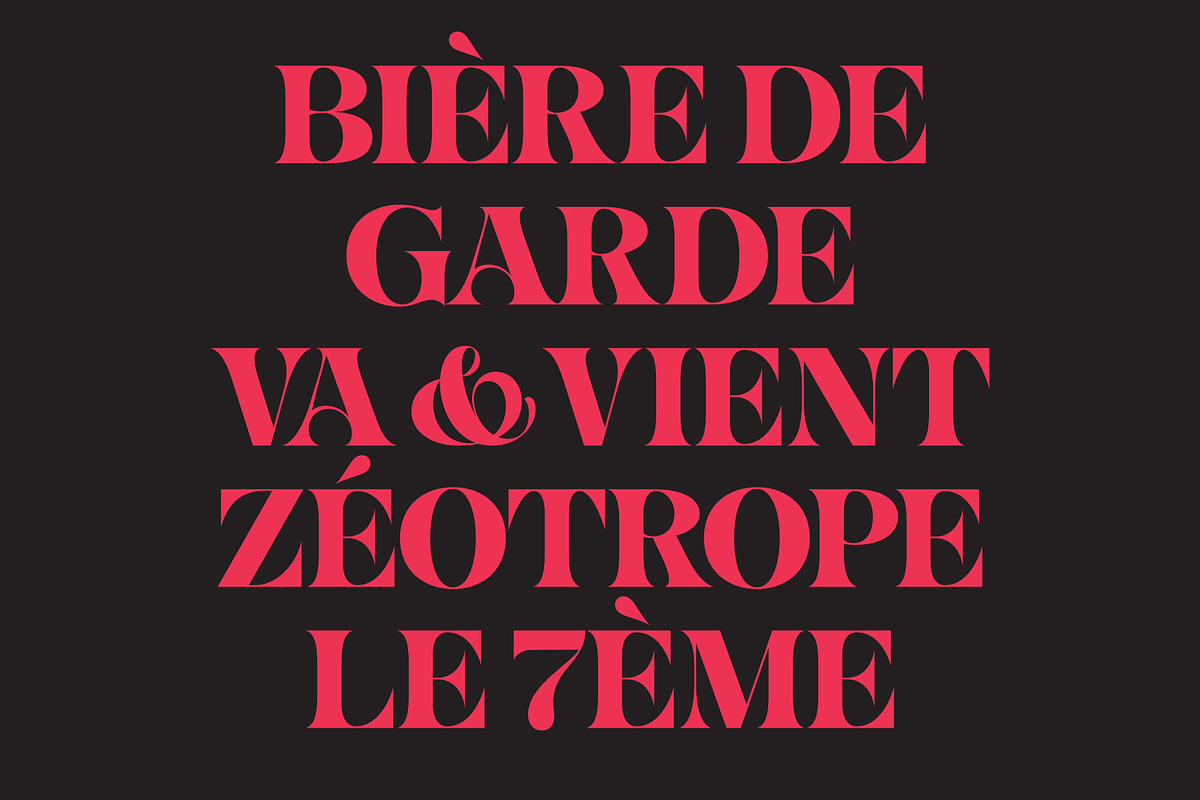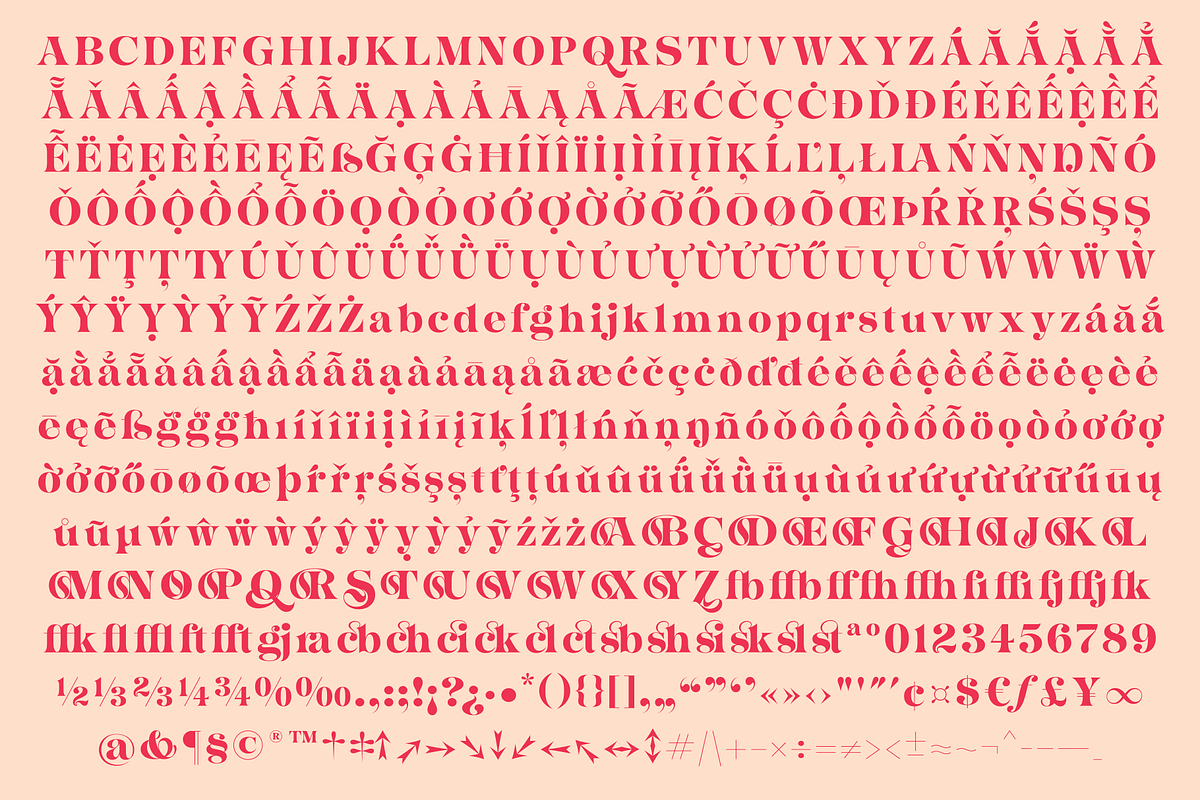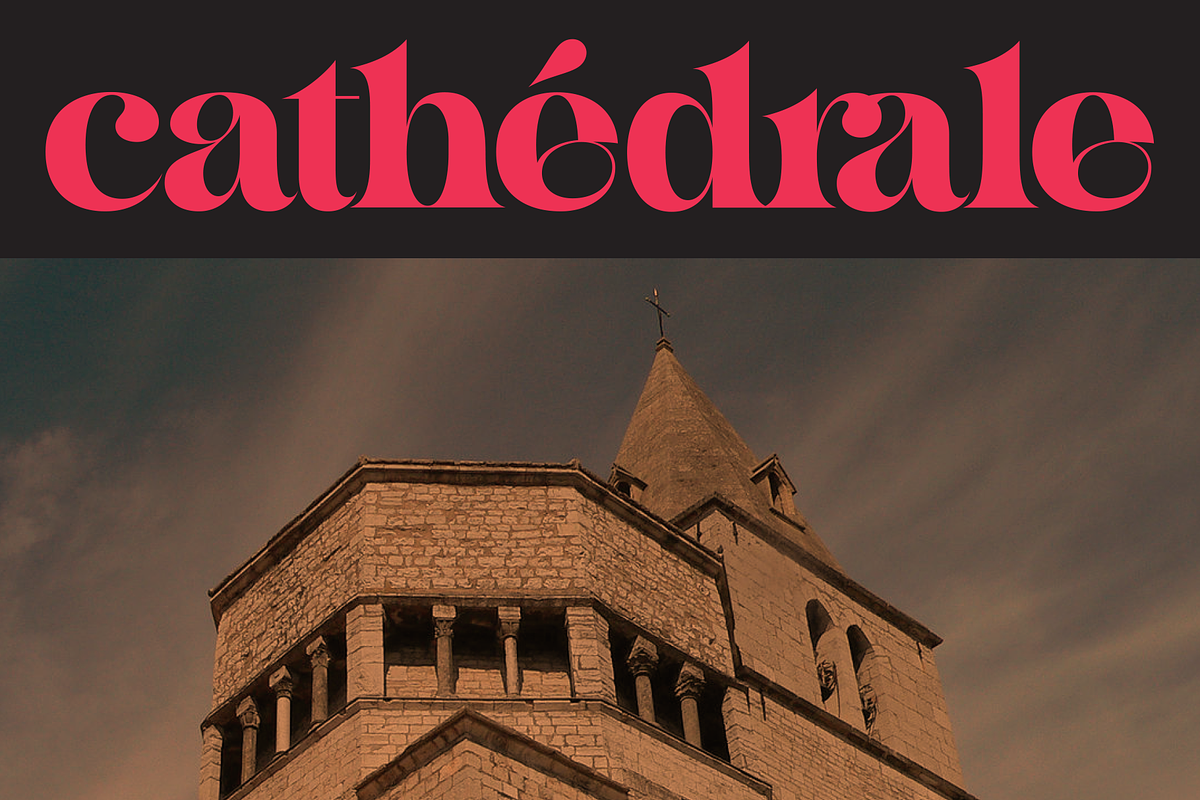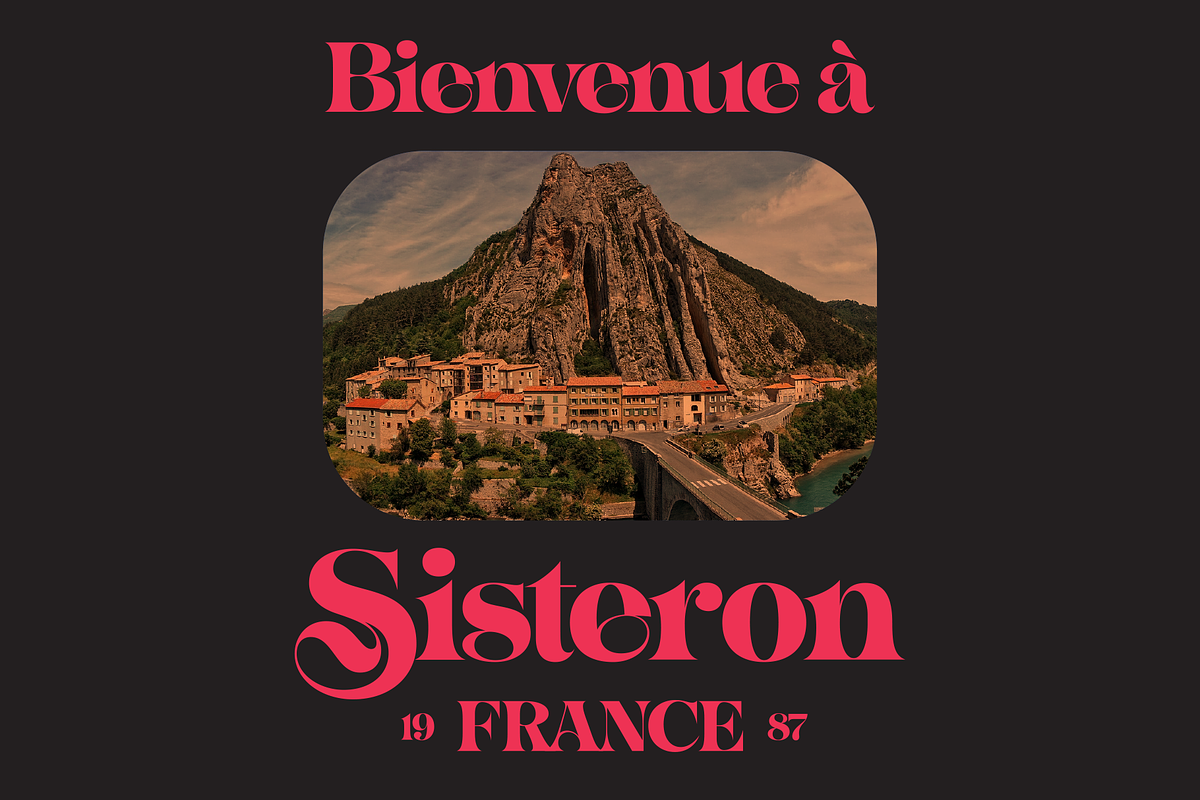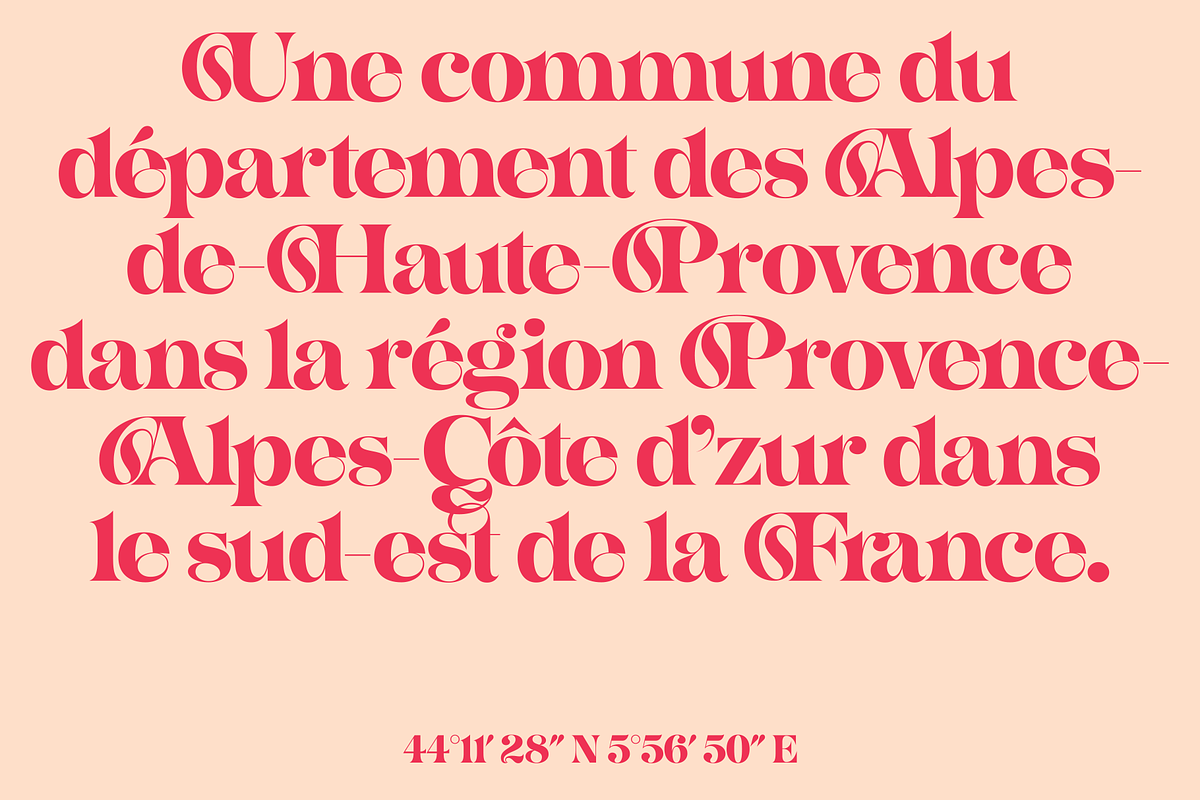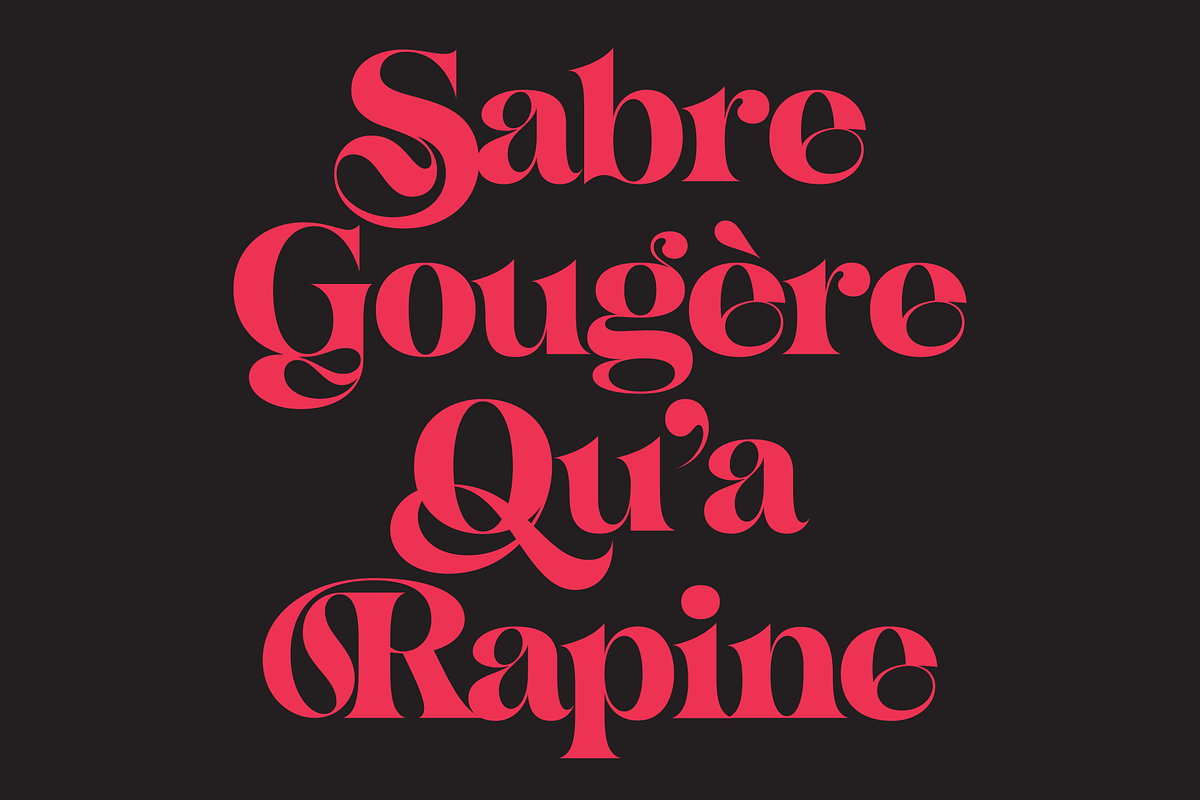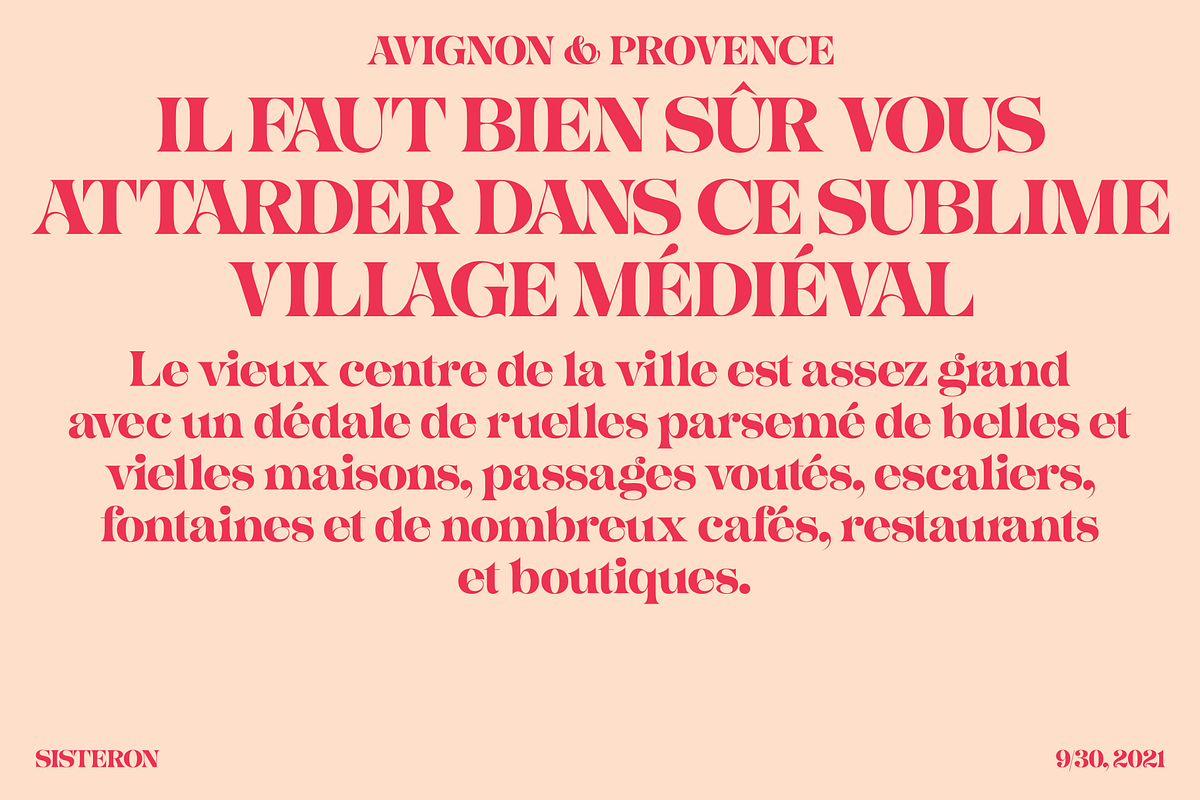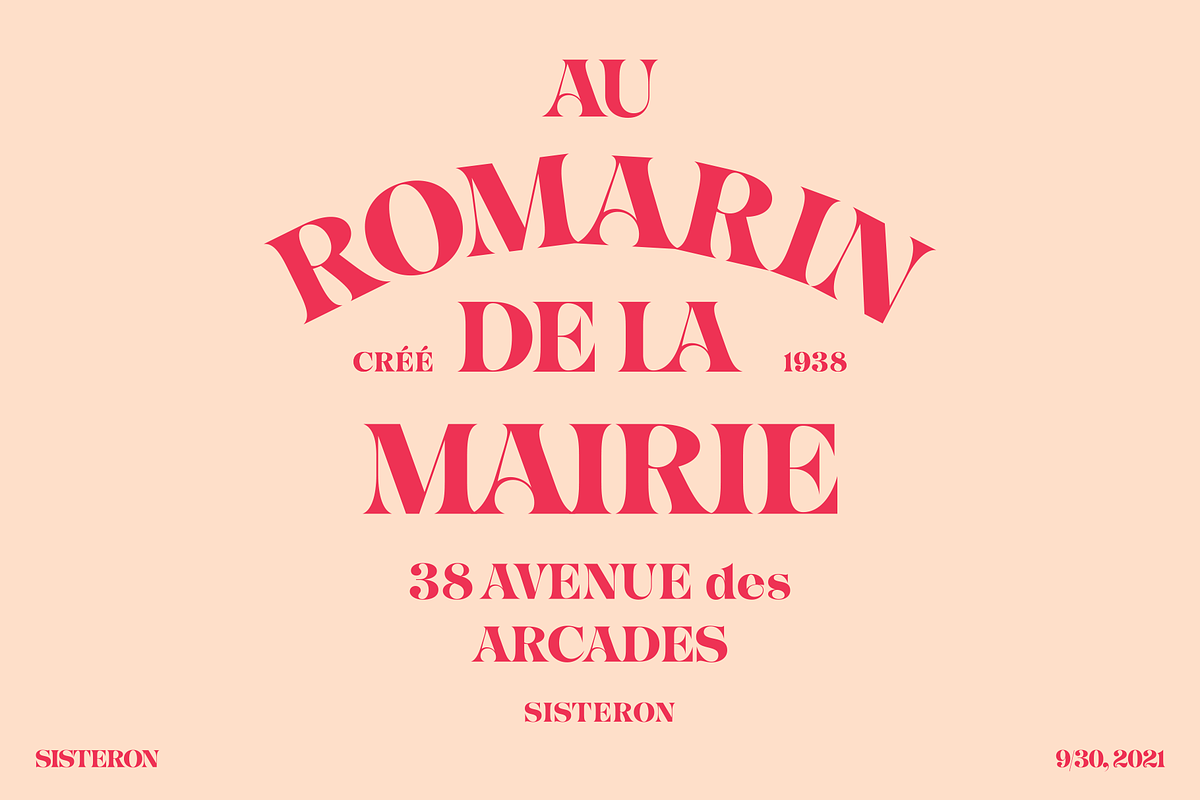
Sisteron
Sisteron is a display font in the Jugendstil style. It has 543 glyphs, including a wide array of alternates, a full set of 26 swash caps, and foreign characters, making it compatible with dozens of foreign languages. Check out a sample PDF here: https://www.dropbox.com/s/wzd9tbwfa8h81ig/_sisteron_specimen.pdf?dl=0